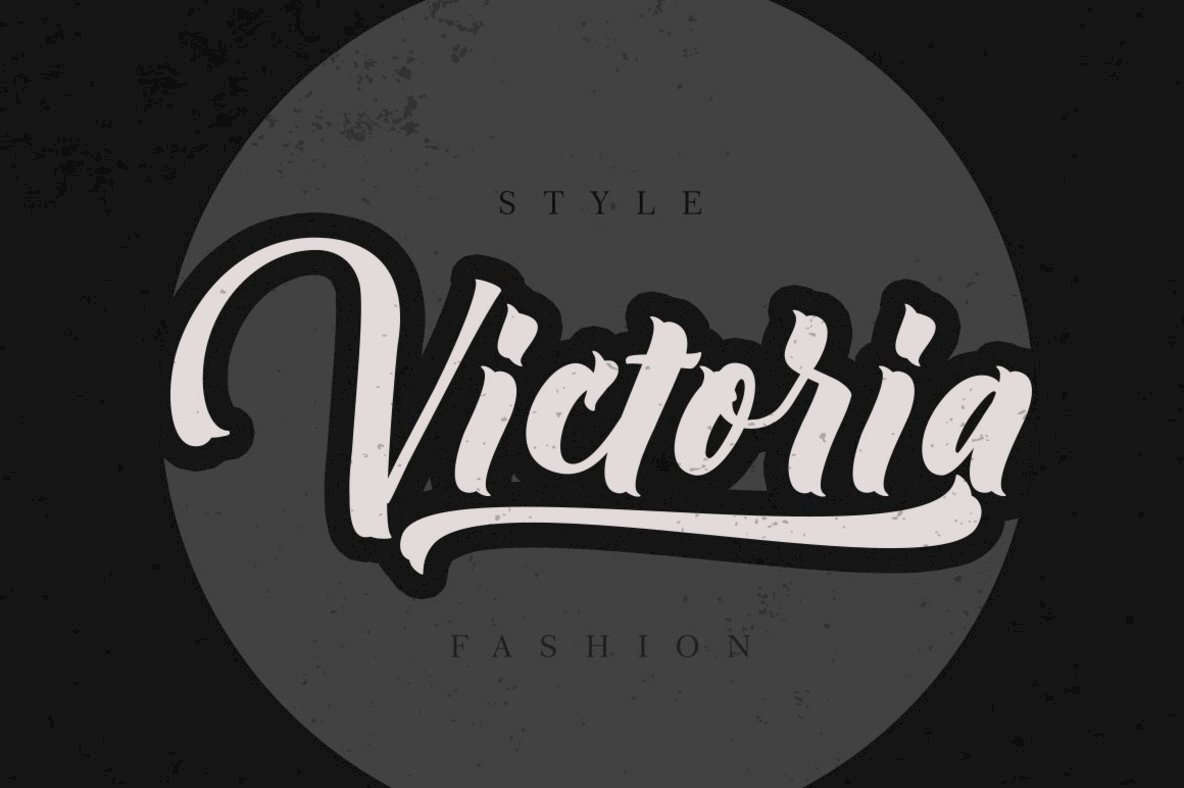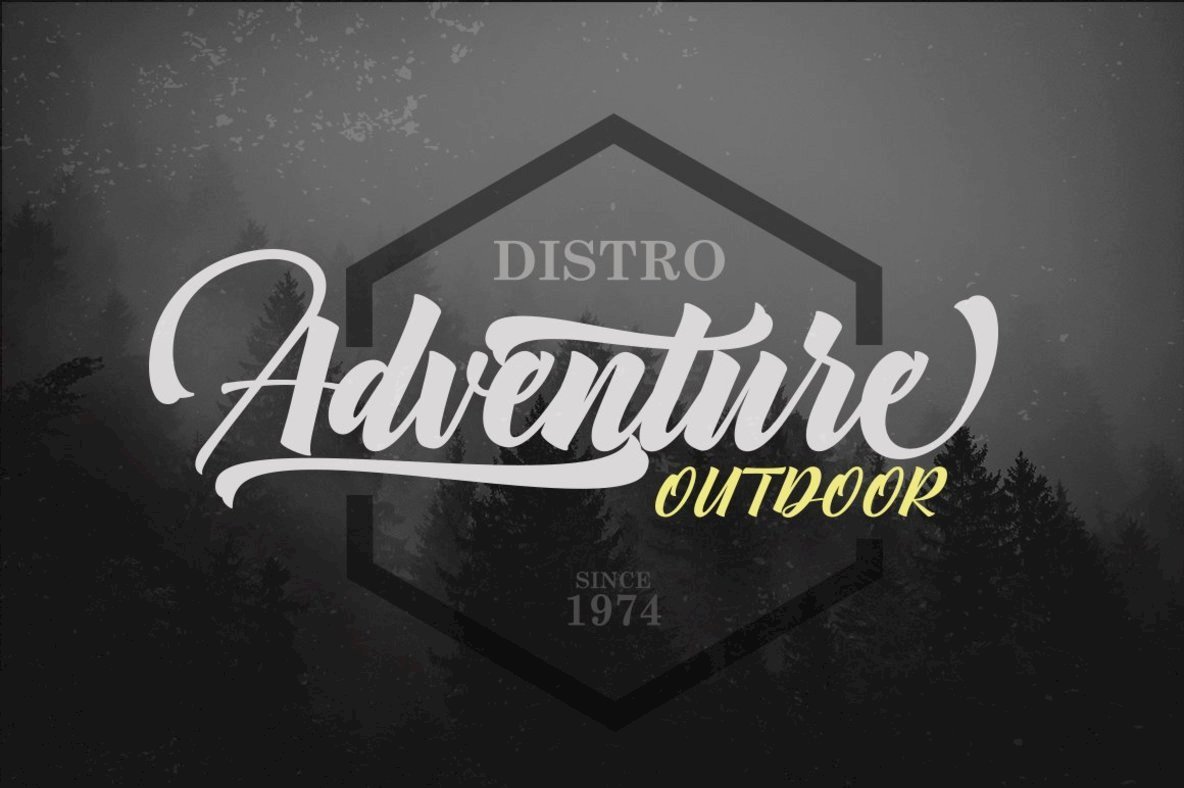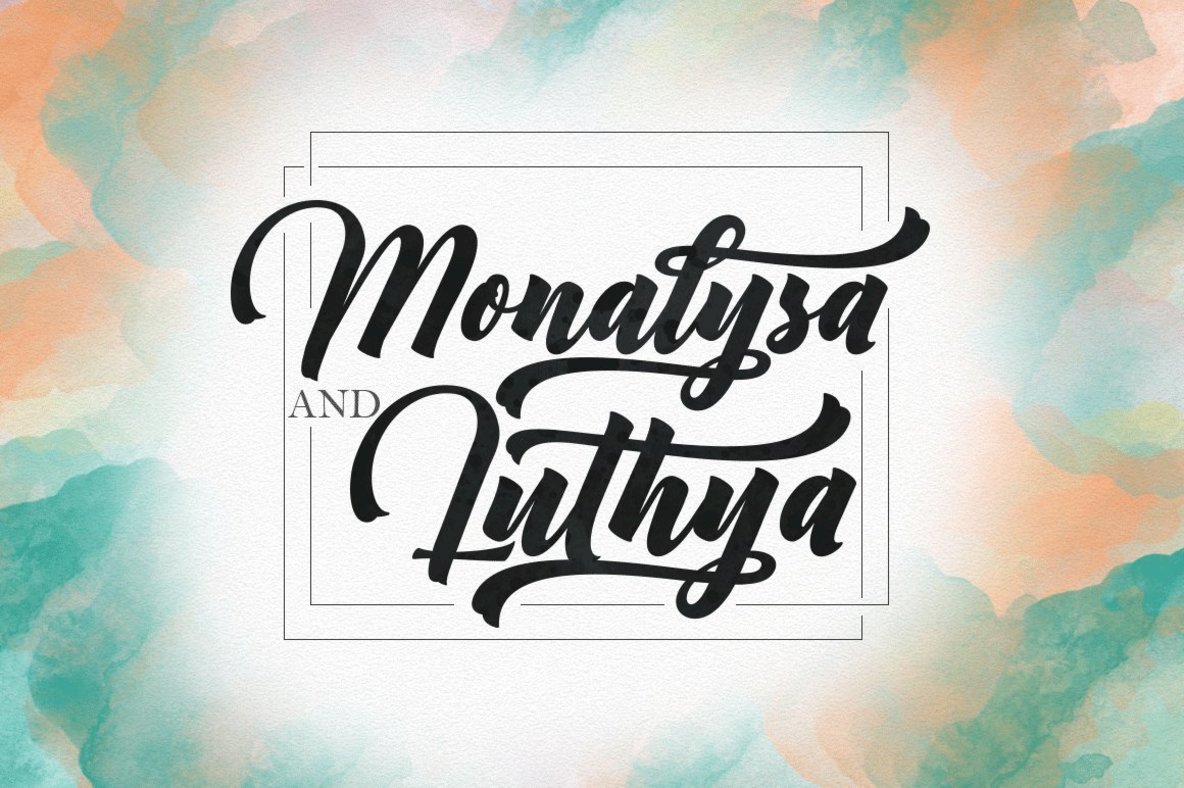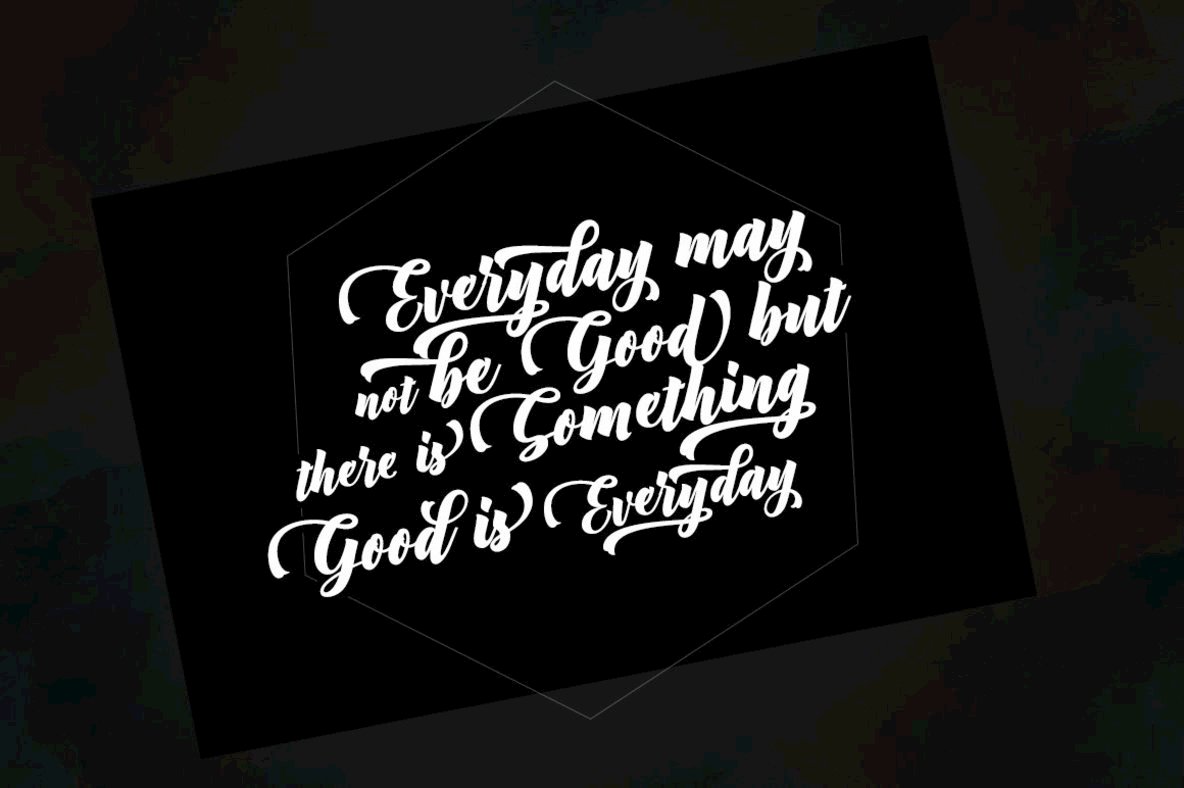
Amster Font
Amster is a captivating blend of bold brush script and modern calligraphy, offering a distinct and elegant typeface for your design needs. Its unique aesthetic is perfect for infusing an artistic touch into any project, seamlessly balancing beauty with functionality. Amster supports a wide array of European languages, including all those based on the Latin alphabet, ensuring versatility in international projects. This font excels in various applications, such as headings, logos, wedding invitations, t-shirts, letterheads, labels, news articles, posters, and badges. To fully utilize Amster's OpenType features, compatibility with programs like Adobe Illustrator CS, Adobe InDesign, or CorelDraw X6-X7 is recommended. Embrace the elegance of Amster for your next creative project.Amster: Bold Brush Script with Modern Calligraphy Style